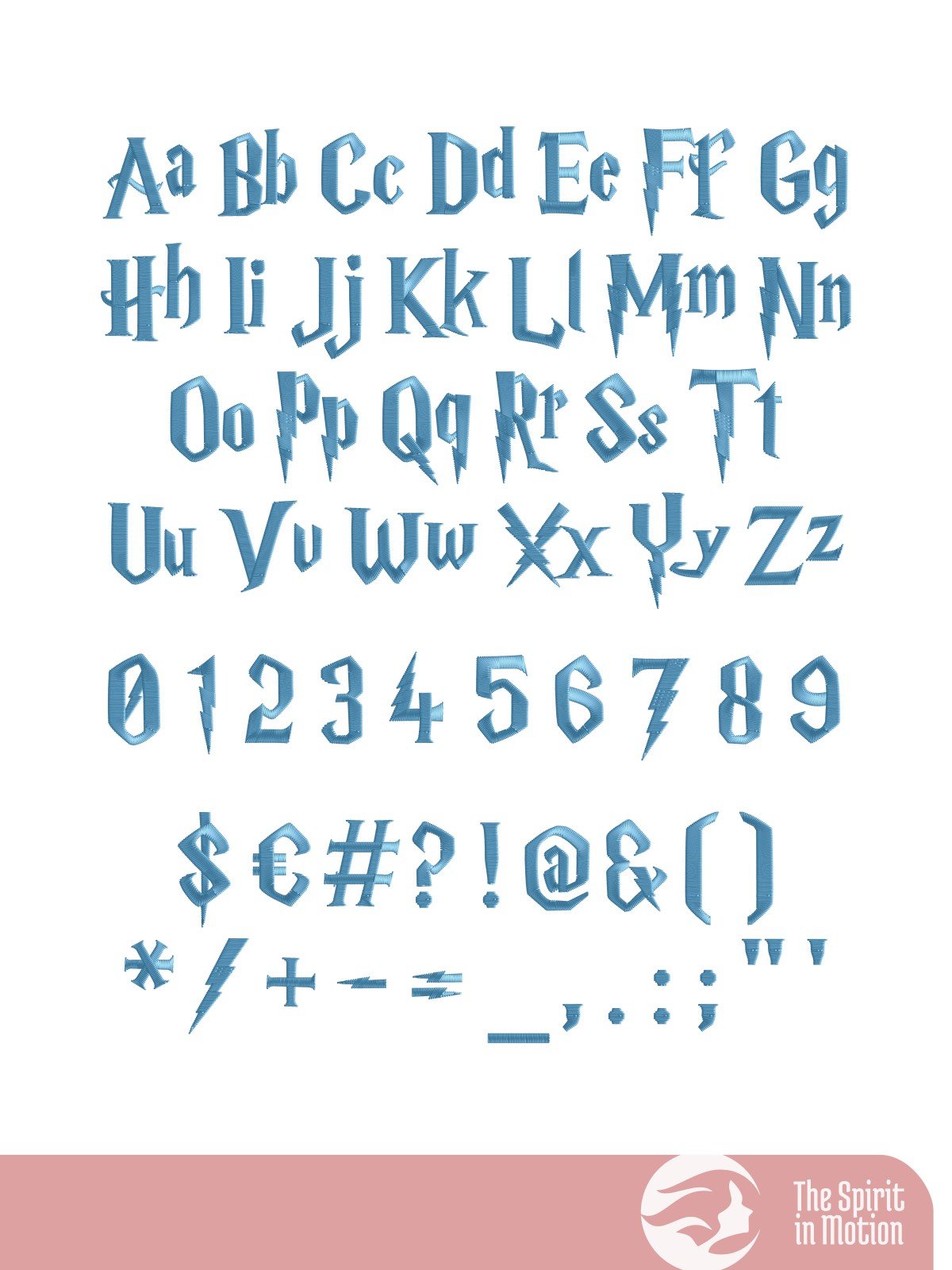
Step into a world of ancient legends and hidden wonders with Wizard HQ, a digitized font designed for those who carry a spark of the extraordinary. This typeface features bold, lightning-sharp strokes and a stately, academic weight, evoking the feeling of mysterious scrolls and centuries-old common rooms.
While it carries a heroic, scholarly charm year-round, Wizard HQ is the ultimate choice for your Halloween creations. Whether you are stitching costumes for a night of trick-or-treating or crafting eerie, enchanted decor for a moonlit party, these letters add an unmistakable touch of "chosen one" energy to every stitch.